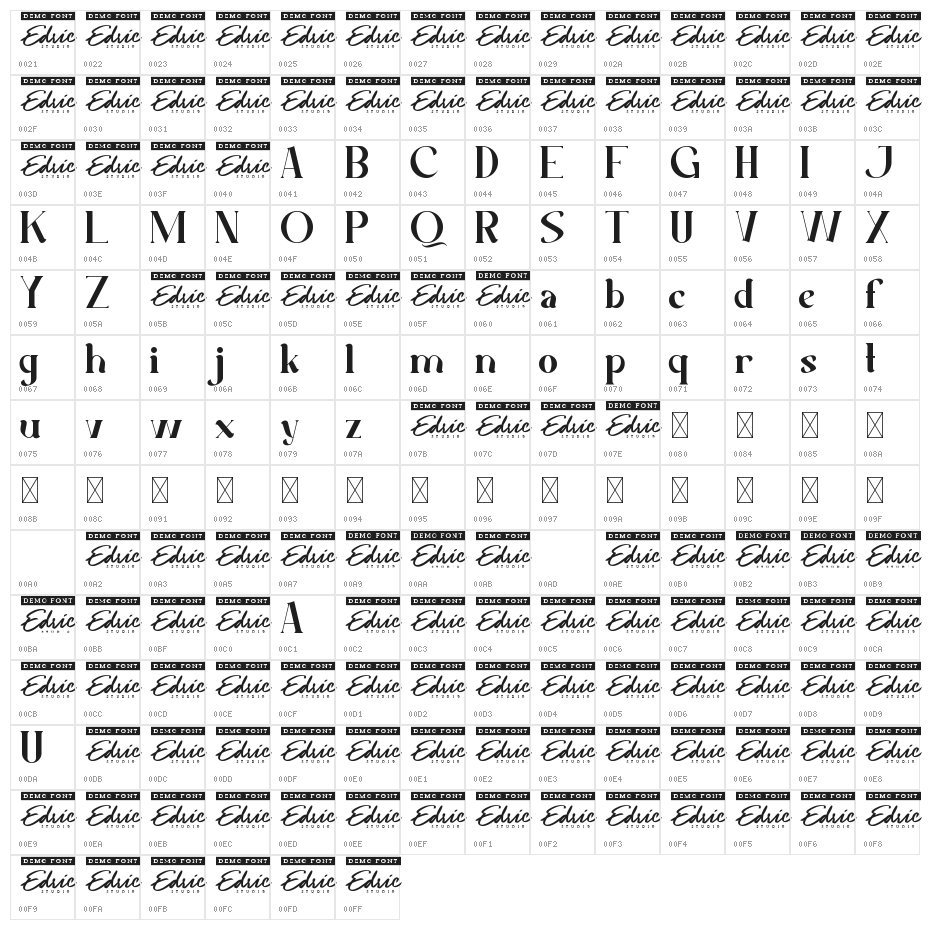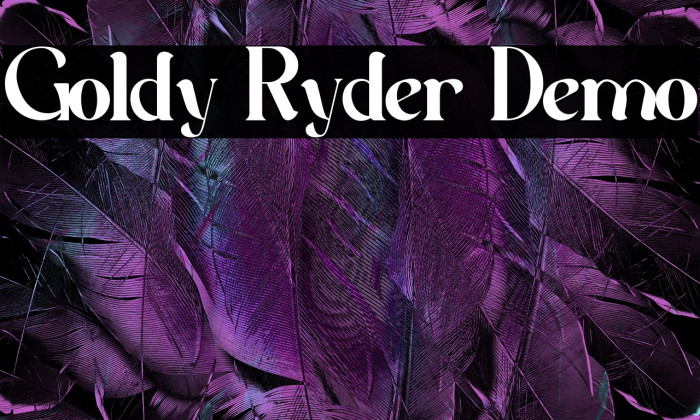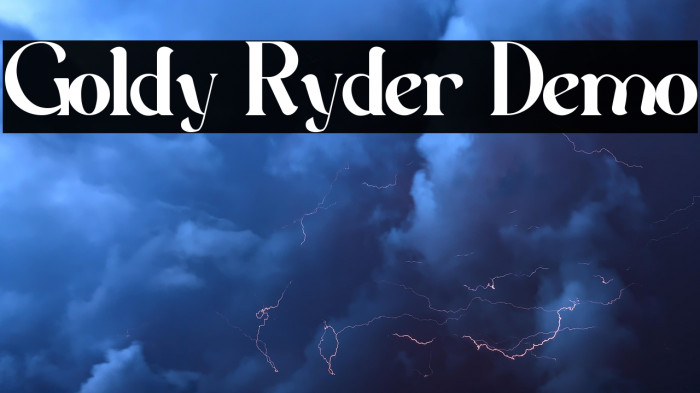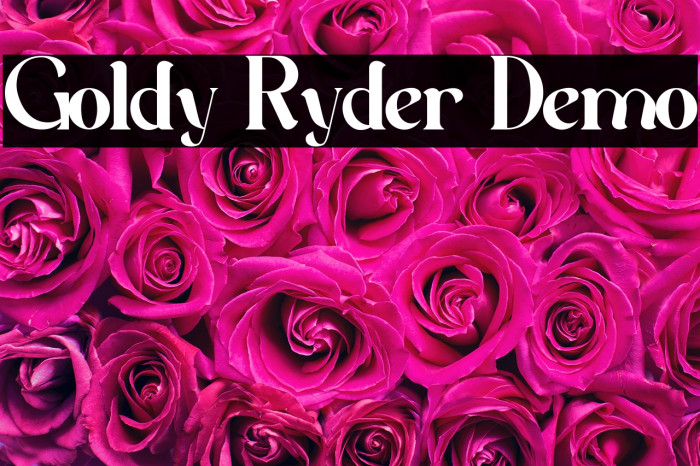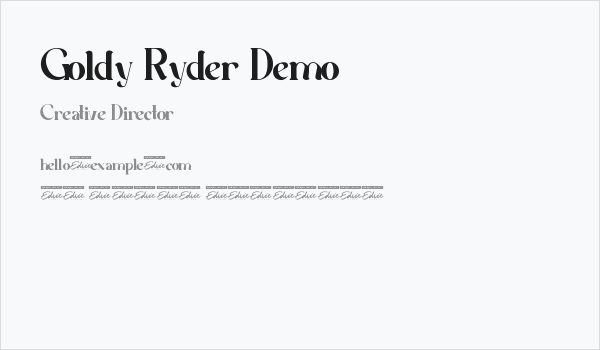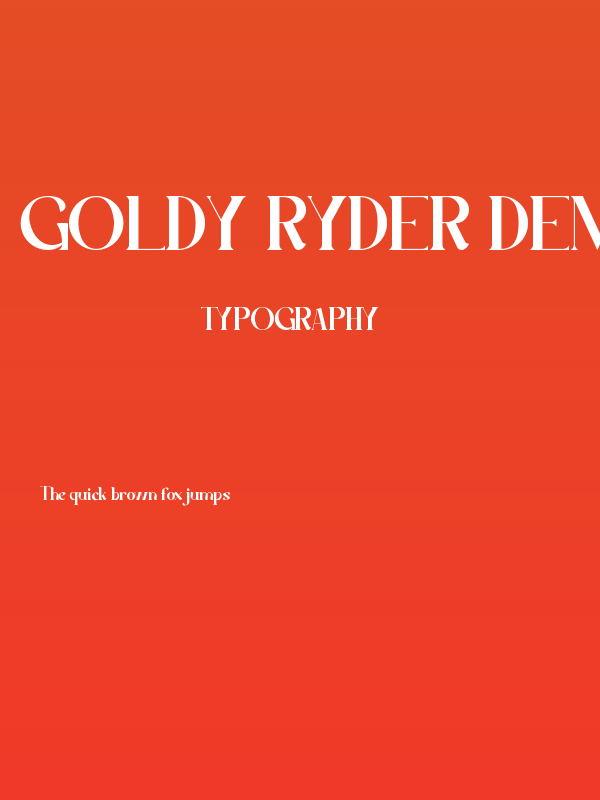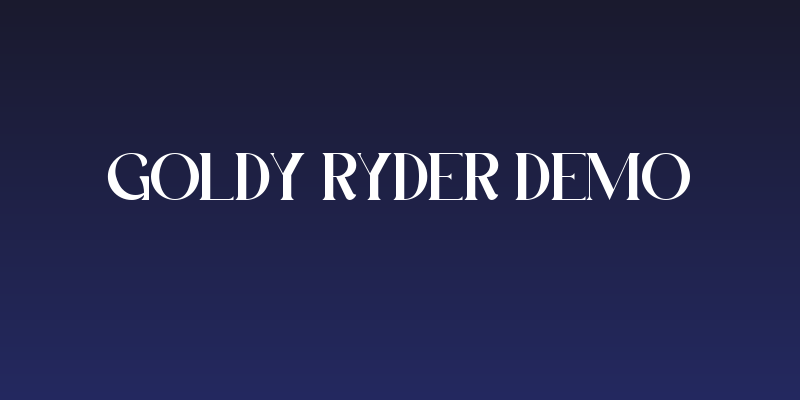
Goldy Ryder Demo Font
Goldy Ryder Demo Description
This font features a striking blend of modern and classic elements, characterized by its bold, high-contrast strokes and unique serifs. The uppercase letters exhibit a strong presence with sharp angles and a sense of elegance, while the lowercase letters maintain a cohesive flow with rounded forms and distinctive terminals. The font's overall style is both sophisticated and versatile, making it suitable for a variety of design applications. Its decorative flair is evident in the special characters, which add a touch of personality and creativity. The font's structure is well-balanced, offering a harmonious blend of traditional and contemporary aesthetics.